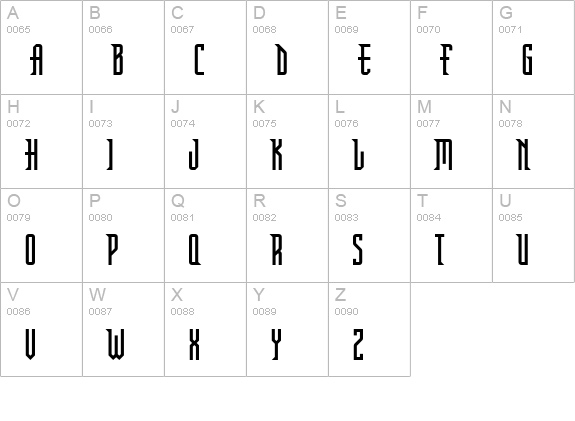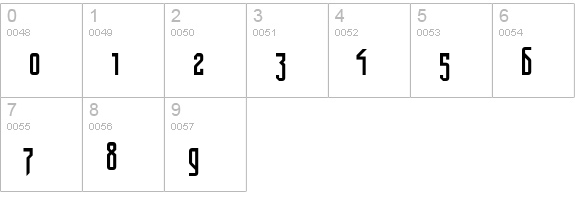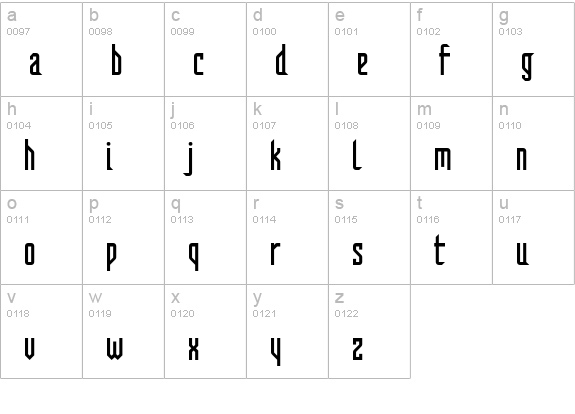
Disney Tomorrow Land Font Details
The Disney Tomorrow Land font is a whimsical and futuristic typeface inspired by the innovative spirit of Tomorrowland at Disney parks. This unique font features sleek lines and a modern design that captures the essence of tomorrow. With its clean and futuristic look, the Disney Tomorrow Land font is perfect for adding a touch of magic to your projects. And the best part? This enchanting font is freely available to download at FontsMarket.com. Whether you're creating a poster, website, or any other design project, the Disney Tomorrow Land font will bring a sense of wonder and excitement to your work. Don't miss out on this opportunity to add a touch of Disney magic to your designs with this free font!